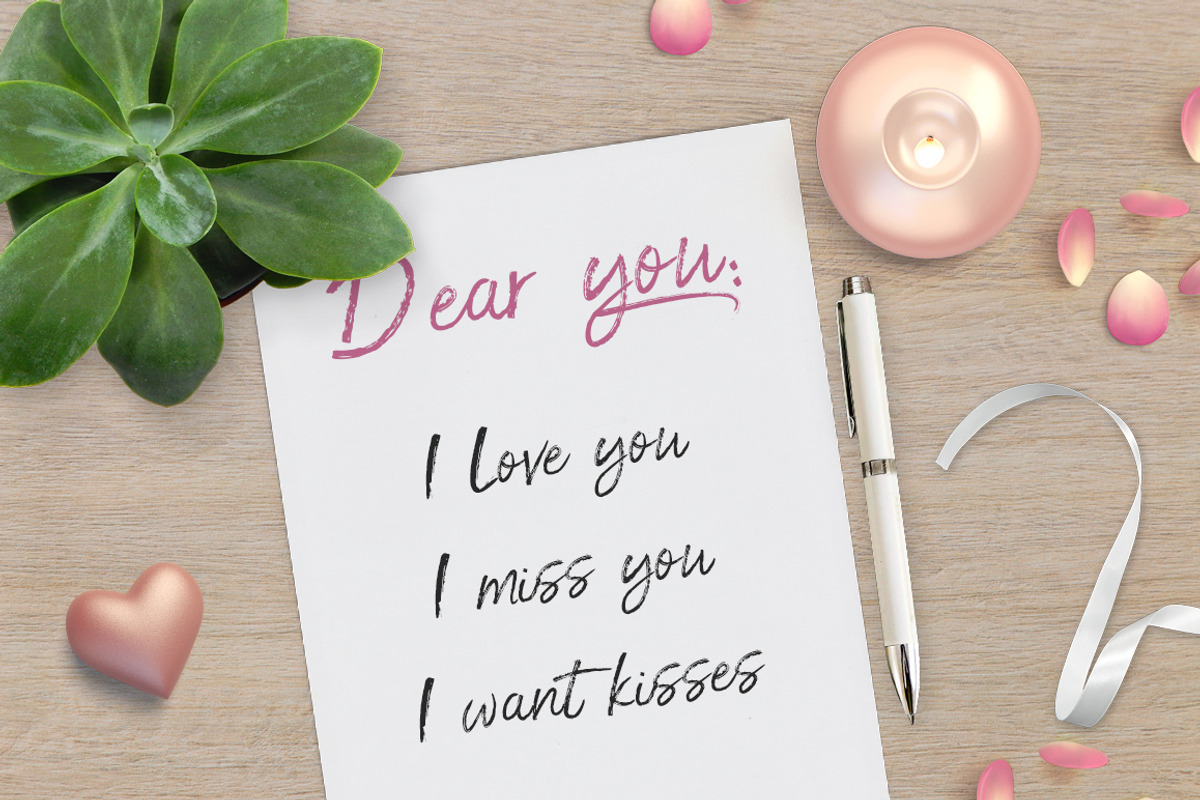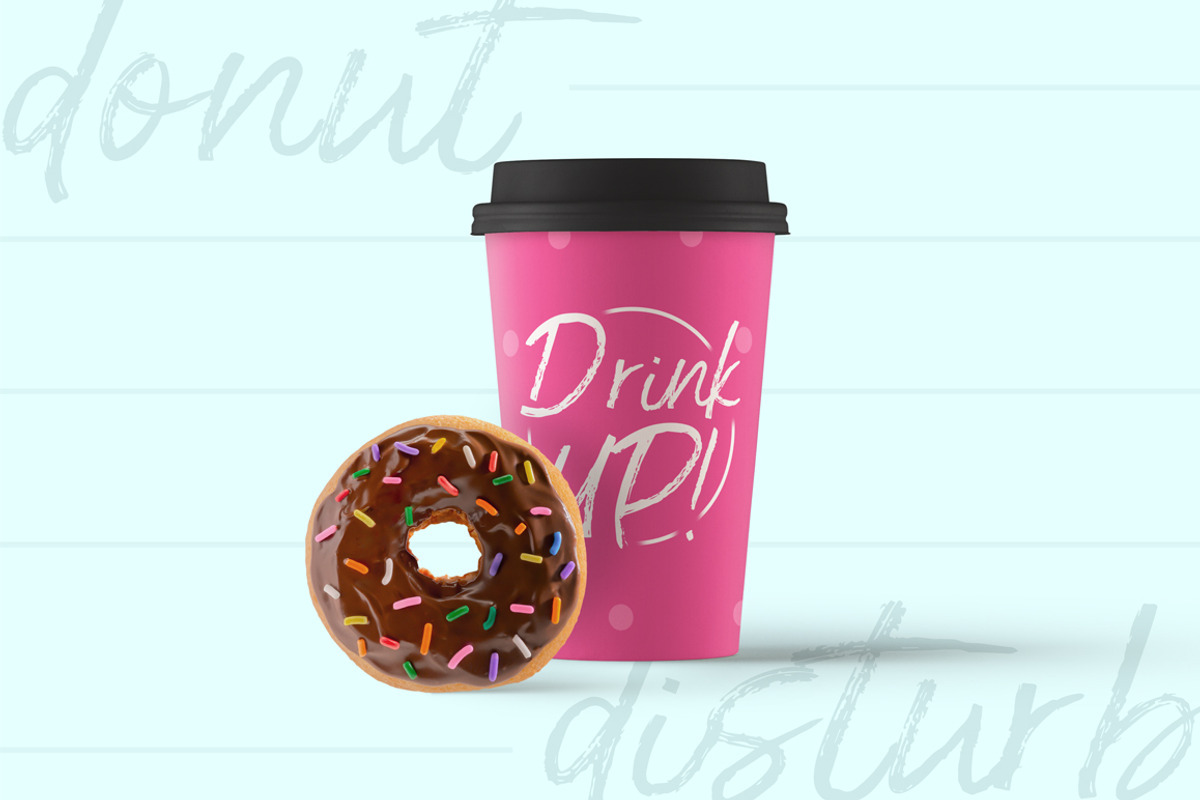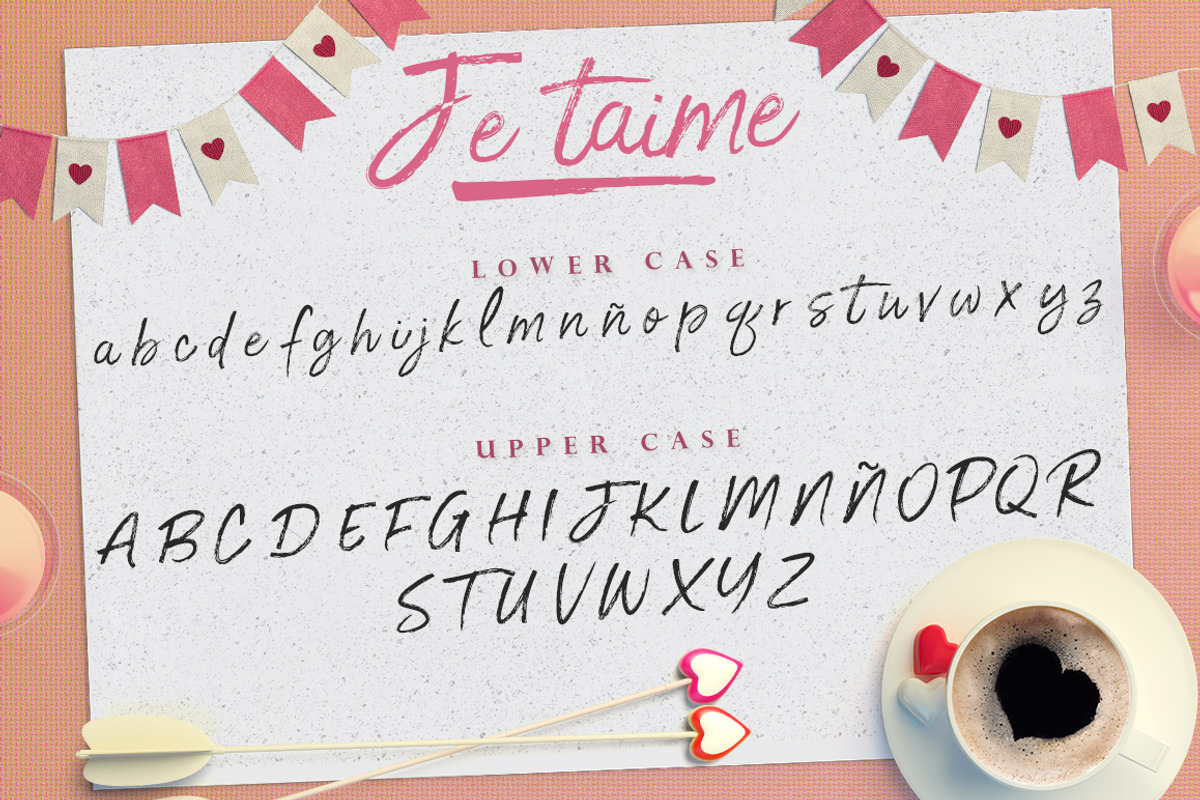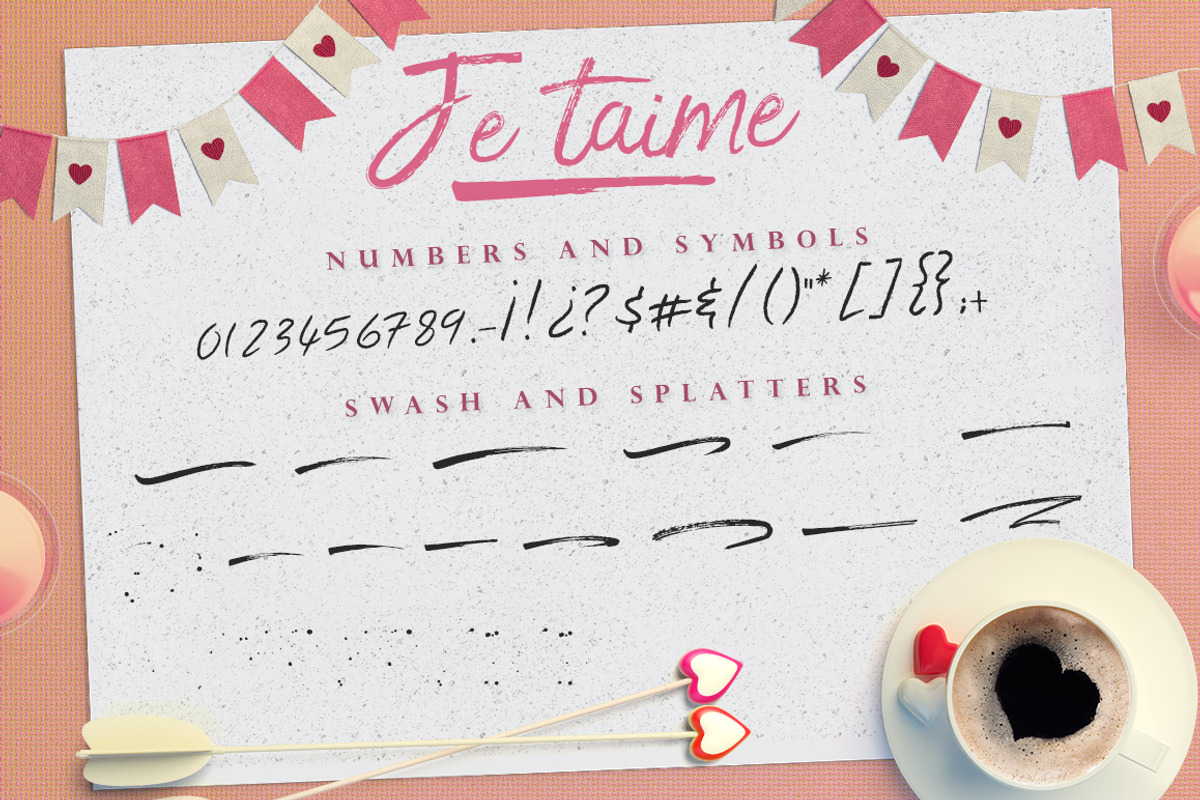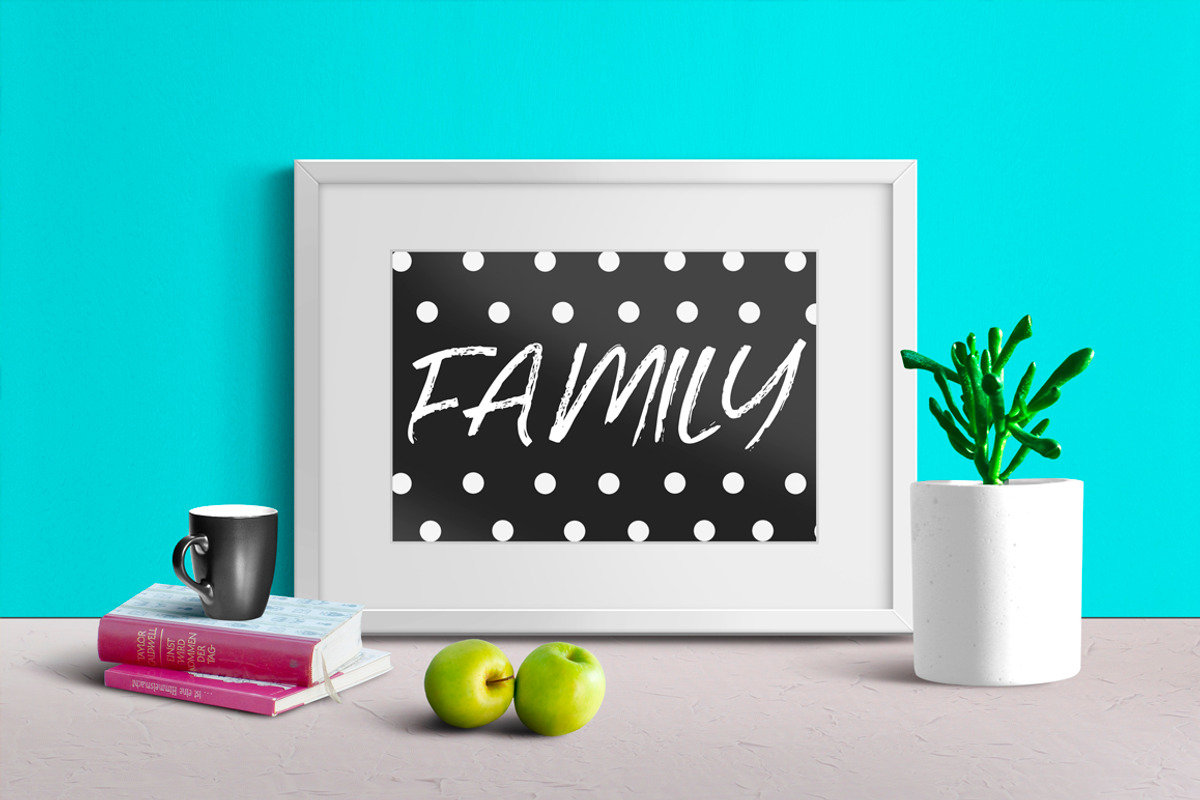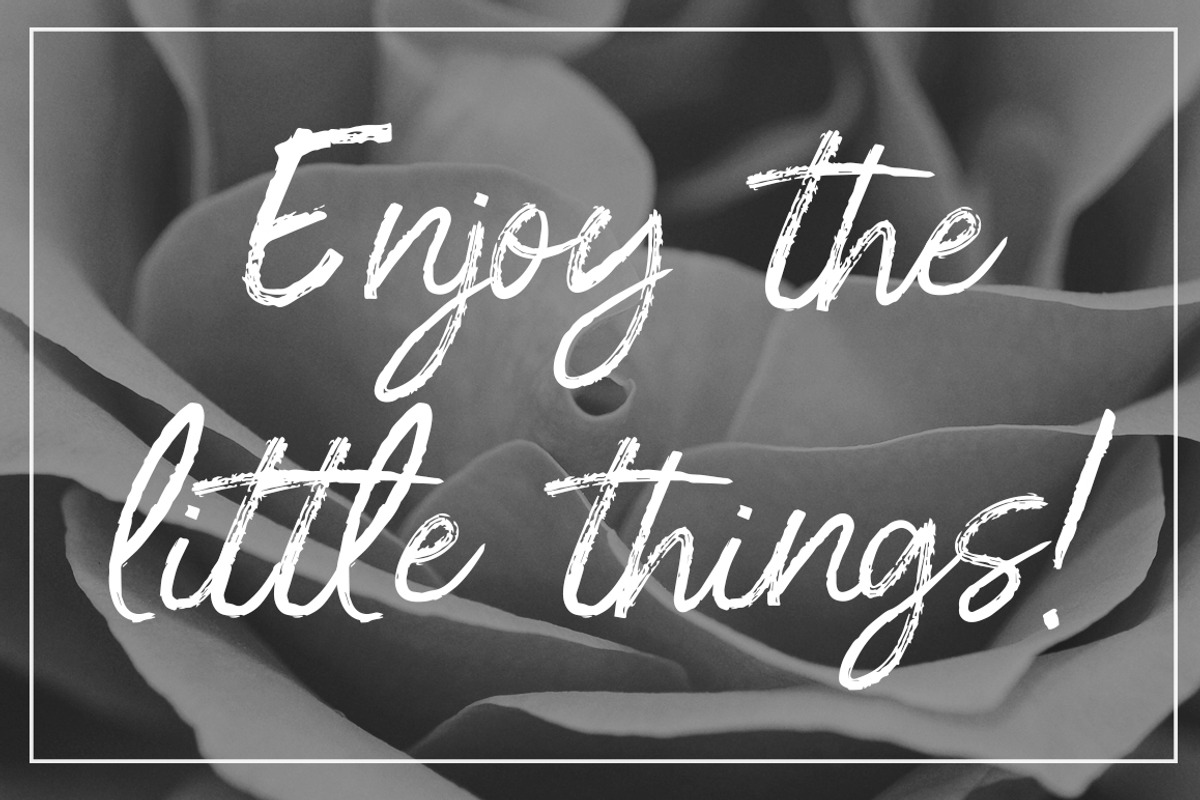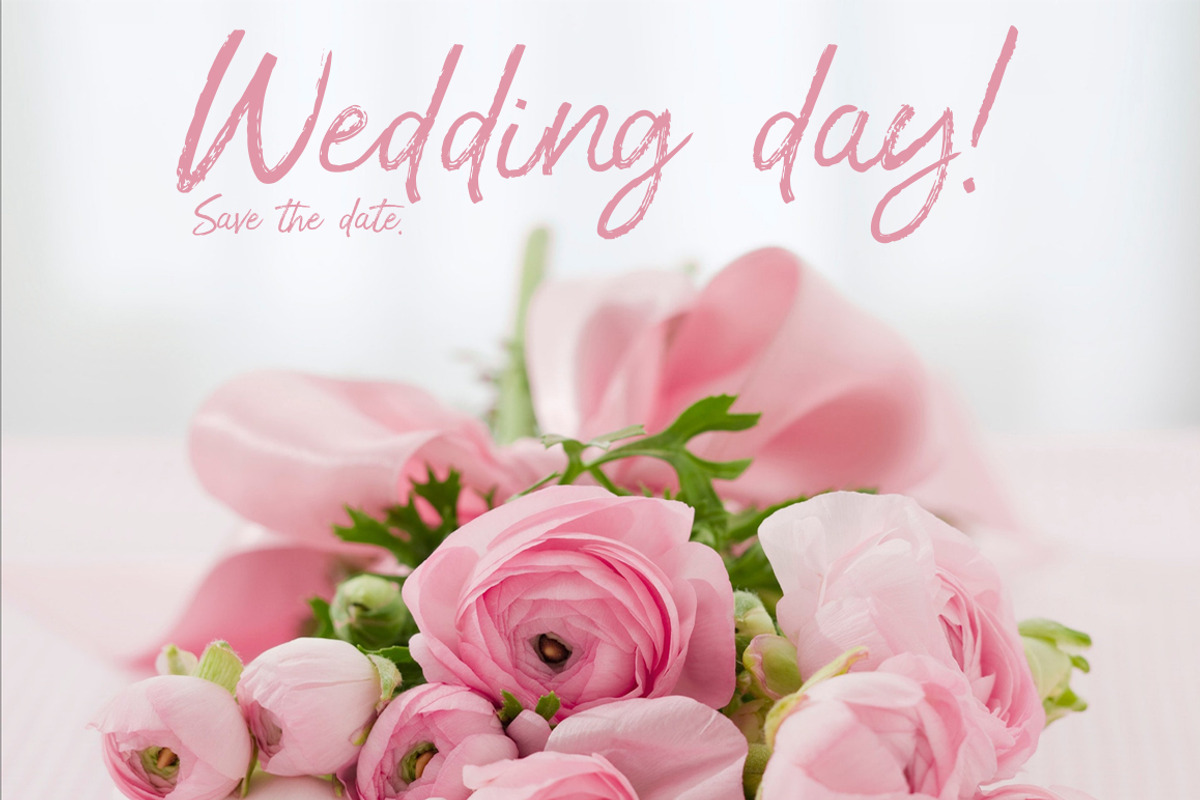
Je T'aime - handmade font + BONUS!!
Je T'aime - Handmade font + BONUS!!
This time I present to you this new born beauty! This gorgeous font has all that we always wanted: is beautiful, stylish, 100% handmade and its was made with tons of love! Its perfect for every need and it will definitely help your designs to be even more perfect! Free your creativity with Je T'aime font!
Create logos, cards, branding projects, wedding invitations, etc.
It has latin characters! Multilingual